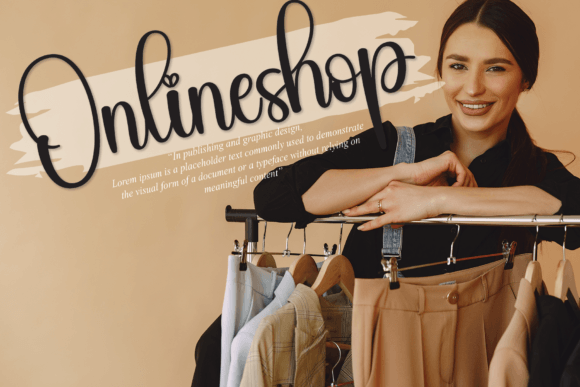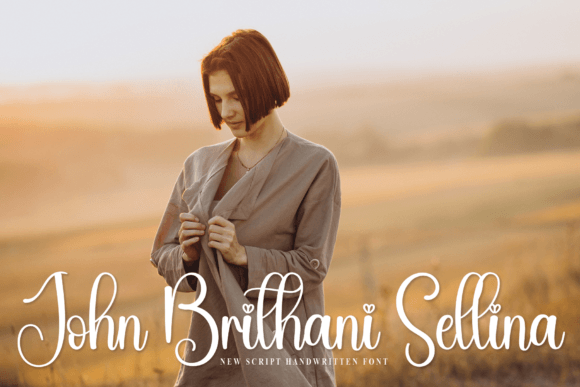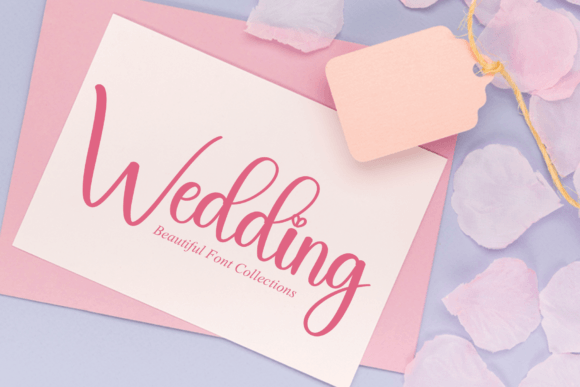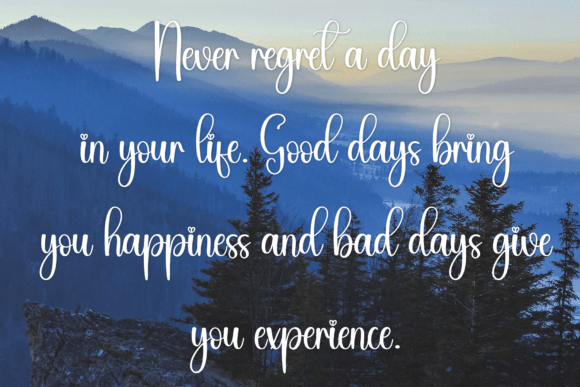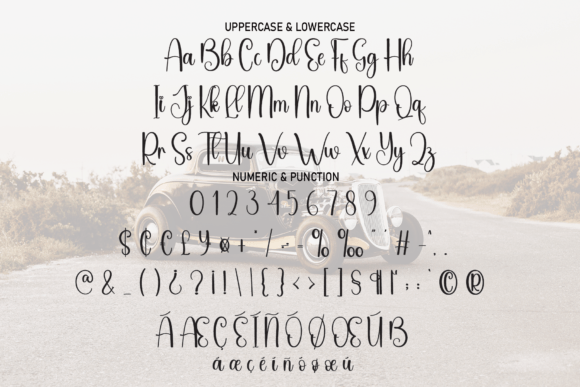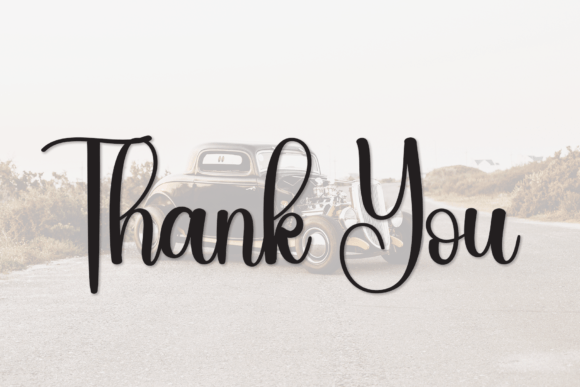
Discover the Charm of Callifornia Font: Elevate Your Designs with a Neat and Casual Handwritten Style
Are you on the hunt for a font that can add a touch of personality to your designs? Look no further than Callifornia Font, a neat and casual handwritten font that’s incredibly versatile. With its unique charm and effortless vibe, Callifornia is perfect for a wide range of applications, from crafting social media graphics to designing branding materials and more.
The Versatility of Callifornia Font
One of the standout features of Callifornia Font is its versatility. This font is suitable for a wide spectrum of applications, making it an excellent addition to any designer’s toolkit. Whether you’re creating:
- Marketing collateral, like brochures and flyers
- Web graphics, including headers and buttons
- DIY craft projects, such as handmade cards and invitations
Callifornia Font is the perfect choice. Its casual, handwritten style adds a touch of warmth and approachability to any design, making it ideal for projects that require a personal and friendly feel.
What Makes Callifornia Font Stand Out
So, what sets Callifornia Font apart from other fonts? Here are just a few features that make it a standout:
- Unique Character: Callifornia Font has a distinct, handwritten style that’s both neat and casual. Its characters are carefully crafted to create a sense of fluidity and movement.
- Easy to Read: Despite its casual nature, Callifornia Font is incredibly easy to read, making it perfect for body text and longer blocks of content.
- Highly Legible: The font’s clear and consistent letterforms ensure that it’s highly legible, even at smaller sizes.
Tips for Using Callifornia Font in Your Designs
To get the most out of Callifornia Font, here are some tips to keep in mind:
- Pair it with Other Fonts: Callifornia Font pairs beautifully with other fonts, especially sans-serif fonts like Arial or Helvetica. Experiment with different combinations to find the perfect match for your design.
- Use it for Headings and Titles: Callifornia Font is perfect for headings and titles, where its unique character can really shine.
Why Designers and Crafters Love Callifornia Font
Designers and crafters alike love Callifornia Font for its unique charm and versatility. Here are just a few reasons why:
- Easy to Use: Callifornia Font is incredibly easy to use, even for those who are new to design or crafting.
- High-Quality Design: The font is carefully crafted to ensure that it’s of the highest quality, with clear and consistent letterforms.
- Endless Creative Possibilities: With Callifornia Font, the creative possibilities are endless. Use it to create stunning designs, craft beautiful projects, or simply add a touch of personality to your everyday communications.